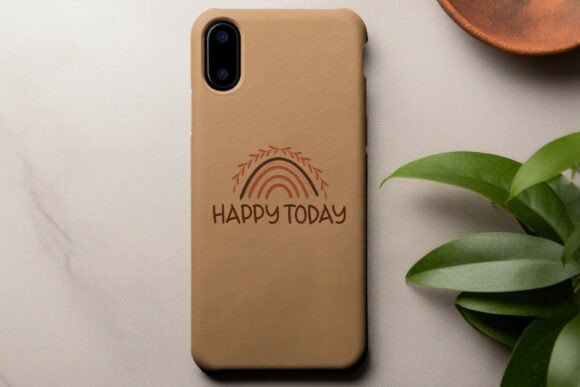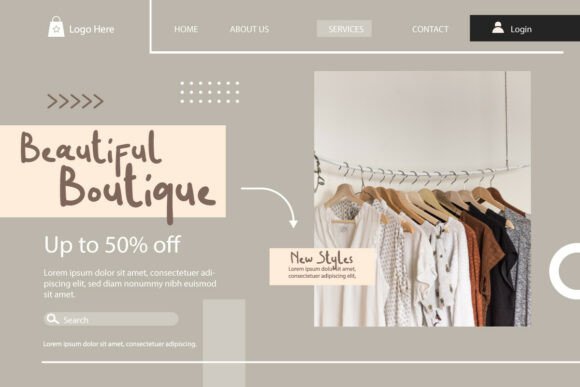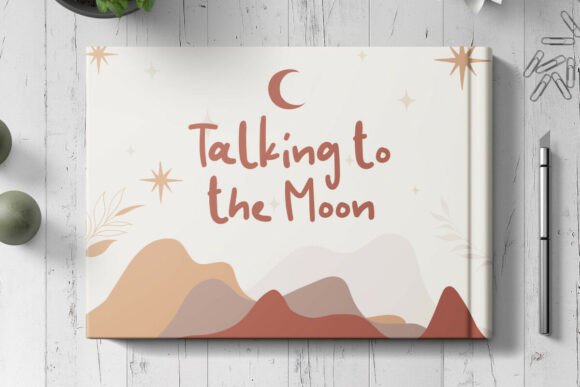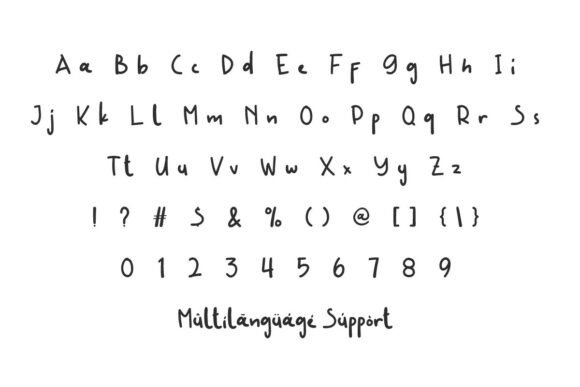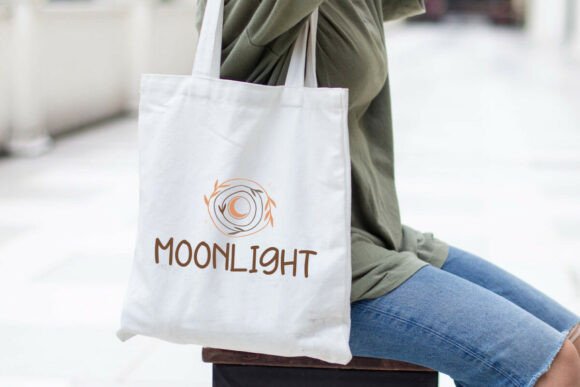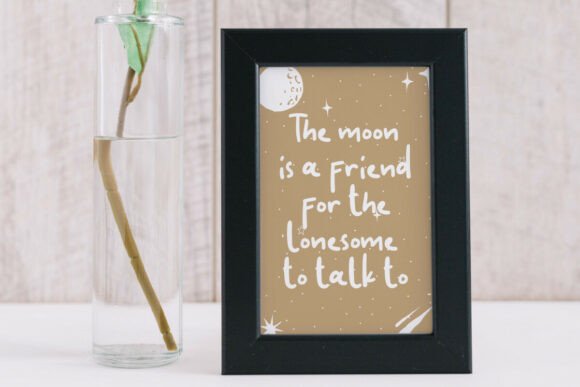
Discover the Charm of Bulan Berbicara Font: A Handwritten Typeface for Personal Expression
In the world of typography, fonts play a crucial role in conveying emotions and setting the tone for a brand or message. For designers and crafters looking for a typeface that exudes warmth and personality, the Bulan Berbicara font is an excellent choice. This delightful handwritten font is designed to capture the essence of personal expression, making it perfect for projects that require a friendly and approachable feel.
The Characteristics of Bulan Berbicara Font
The Bulan Berbicara typeface features soft, rounded strokes and a relaxed rhythm, which gives it a unique and charming appearance. The font’s gentle curves and laid-back vibe make it an ideal choice for lifestyle blogs, social media quotes, or organic product packaging. With Bulan Berbicara, you can add a touch of warmth and personality to your digital storytelling, making it more engaging and relatable to your audience.
One of the standout features of the Bulan Berbicara font is its versatility. You can pair it with a clean, minimalist sans-serif font for a balanced modern look or use it as a standalone header to create a cozy, artisanal atmosphere. The font’s flexibility makes it suitable for a wide range of projects, from digital media to print materials. Whether you’re designing a website, creating social media content, or working on a craft project, Bulan Berbicara is an excellent choice.
The Bulan Berbicara font comes with PUA (Private Use Area) encoding, which means that all special characters and decorative elements are easily accessible without additional software. This feature makes it easy to use the font’s extended features, such as swashes, ligatures, and alternates, to add a personal touch to your designs. With PUA encoding, you can focus on creating stunning designs without worrying about technical complexities.
For designers, the Bulan Berbicara font offers a unique opportunity to add a personal touch to their work. The font’s handwritten nature makes it perfect for creating bespoke designs that stand out from the crowd. Crafters, on the other hand, can use the font to add a touch of personality to their handmade products, such as greeting cards, invitations, or packaging materials.
Tips for Using Bulan Berbicara Font
To get the most out of the Bulan Berbicara font, here are a few tips:
- Pair it with a clean sans-serif font for a modern look.
- Use it as a standalone header to create a cozy atmosphere.
- Experiment with different font sizes and colors to add visual interest.
- Take advantage of PUA encoding to access special characters and decorative elements.
The Bulan Berbicara font is a delightful handwritten typeface that offers a unique blend of warmth, personality, and versatility. With its soft, rounded strokes and relaxed rhythm, it’s perfect for projects that require a friendly and approachable feel. Whether you’re a designer or crafter, this font is sure to become a favorite in your collection. So why not experience the quiet charm of Bulan Berbicara font for yourself and discover a new world of creative possibilities?